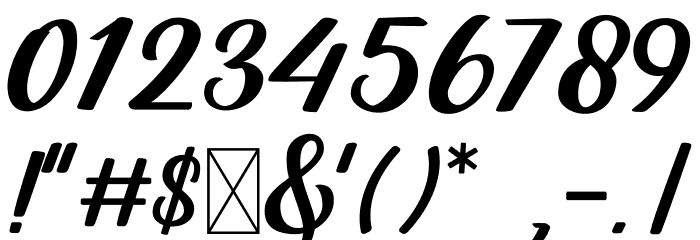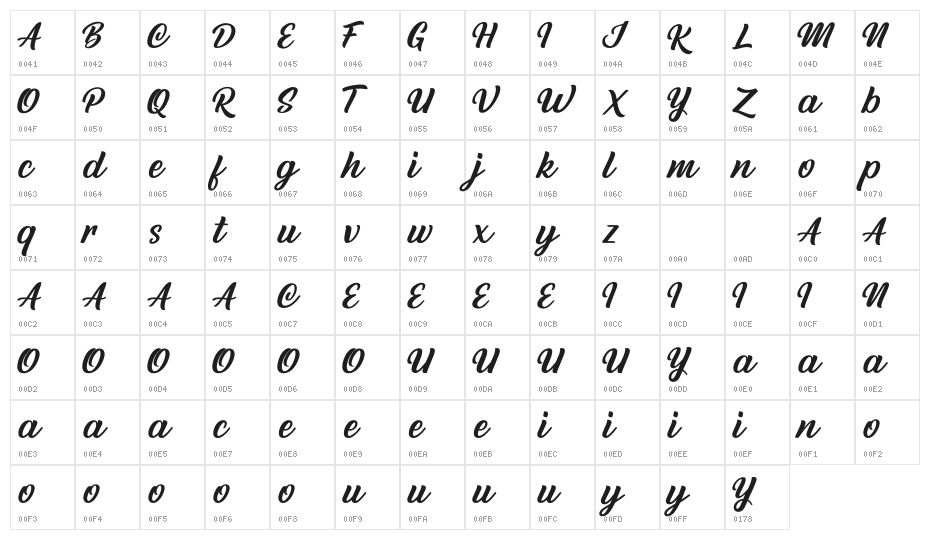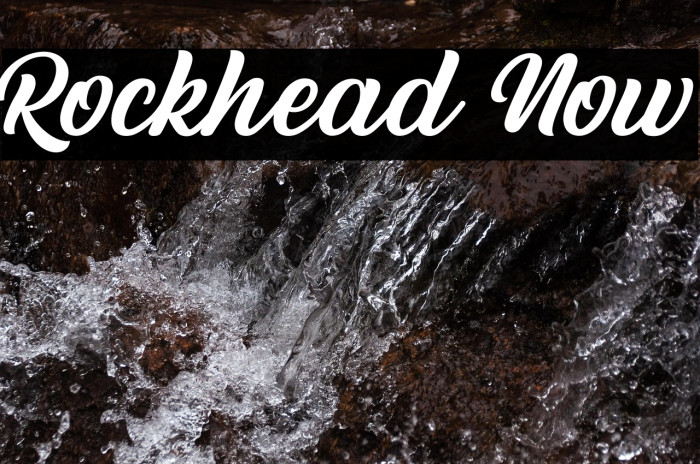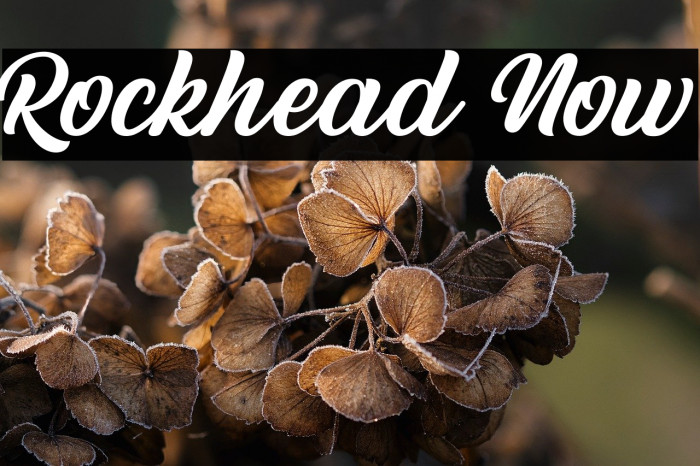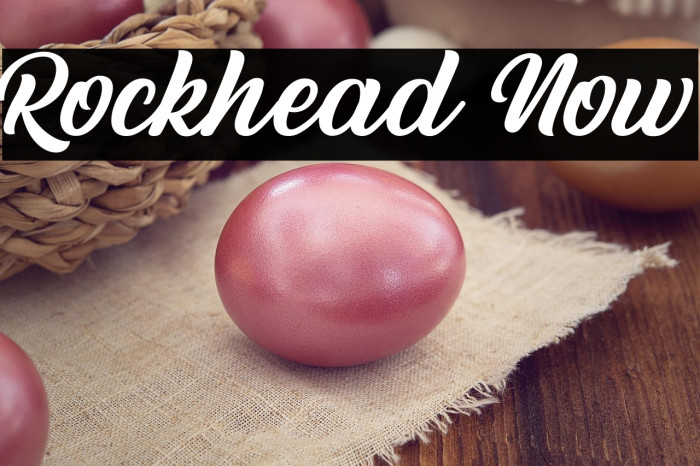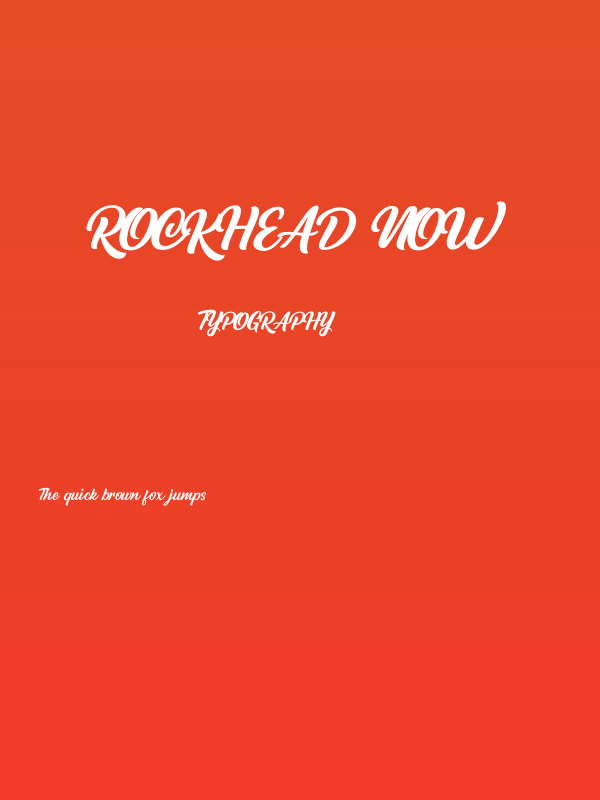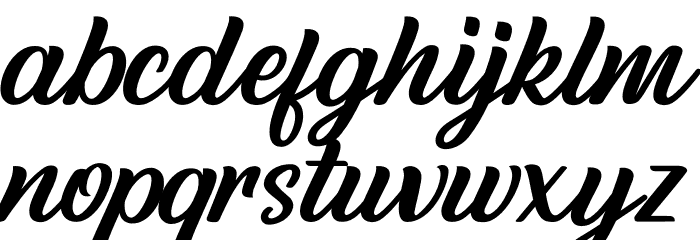
Rockhead Now Font
Rockhead Now Description
This font features a bold and expressive script style, characterized by its fluid and dynamic letterforms. The uppercase letters are elegantly curved, with a consistent slant that adds a sense of motion and energy. The lowercase letters maintain a cohesive flow, complementing the uppercase with their smooth connections and rounded shapes. The numerals are bold and clear, ensuring readability while maintaining the overall aesthetic. Special characters are thoughtfully designed to match the script's lively and artistic nature. This font exudes a modern yet timeless appeal, making it versatile for various design applications.